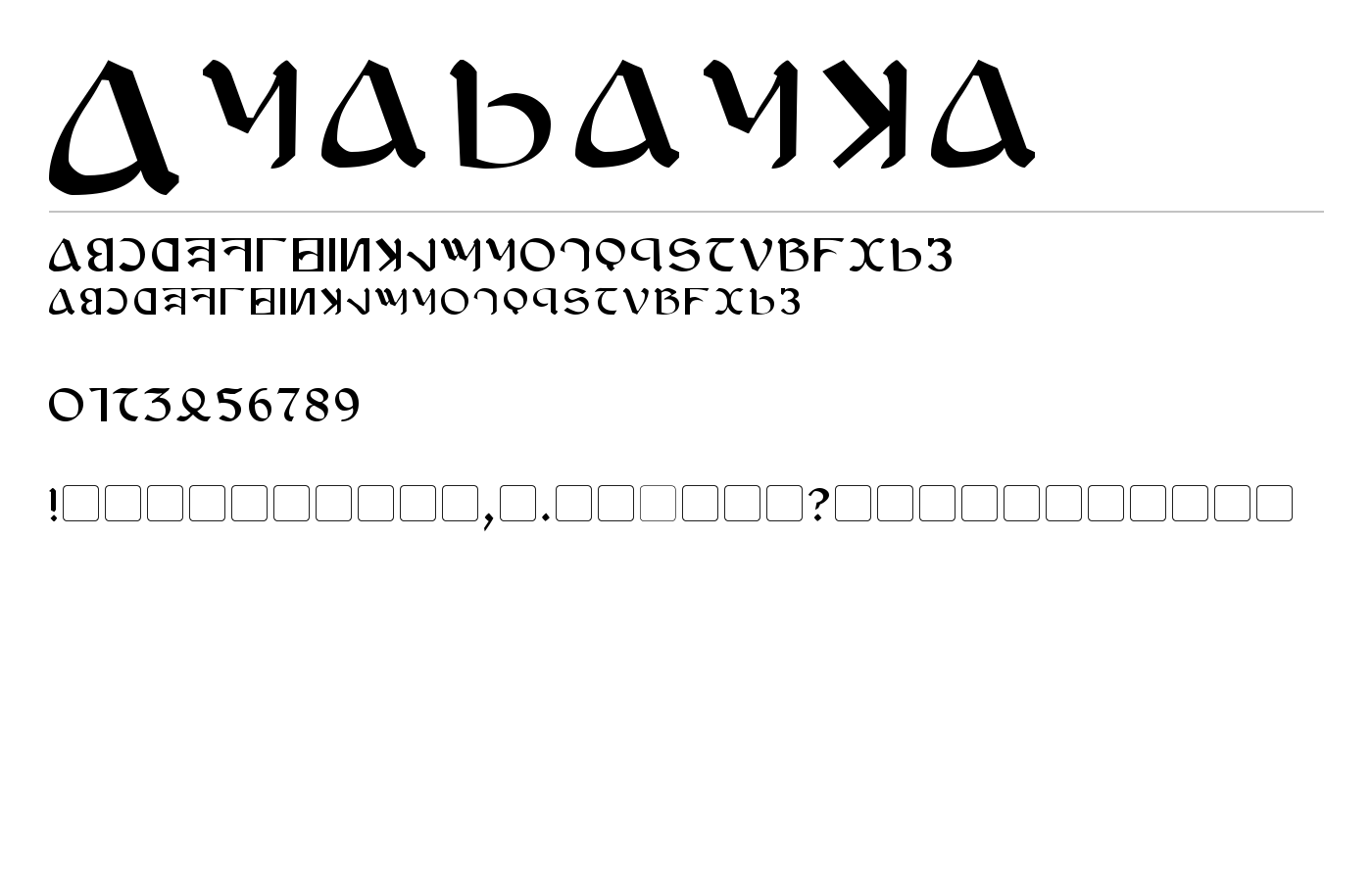
Anayanka is a distinctive serif font with a high-contrast stroke style and sharp, angled terminals that give it a dramatic and artistic flair. Its unique letterforms, including double-story characters and stylized numeral designs, evoke a mysterious, vintage vibe ideal for creative, decorative uses. This font works best in headlines, logos, or branding that seeks an exotic or sophisticated touch, rather than for long blocks of text.
| Designer | Neale Davidson |